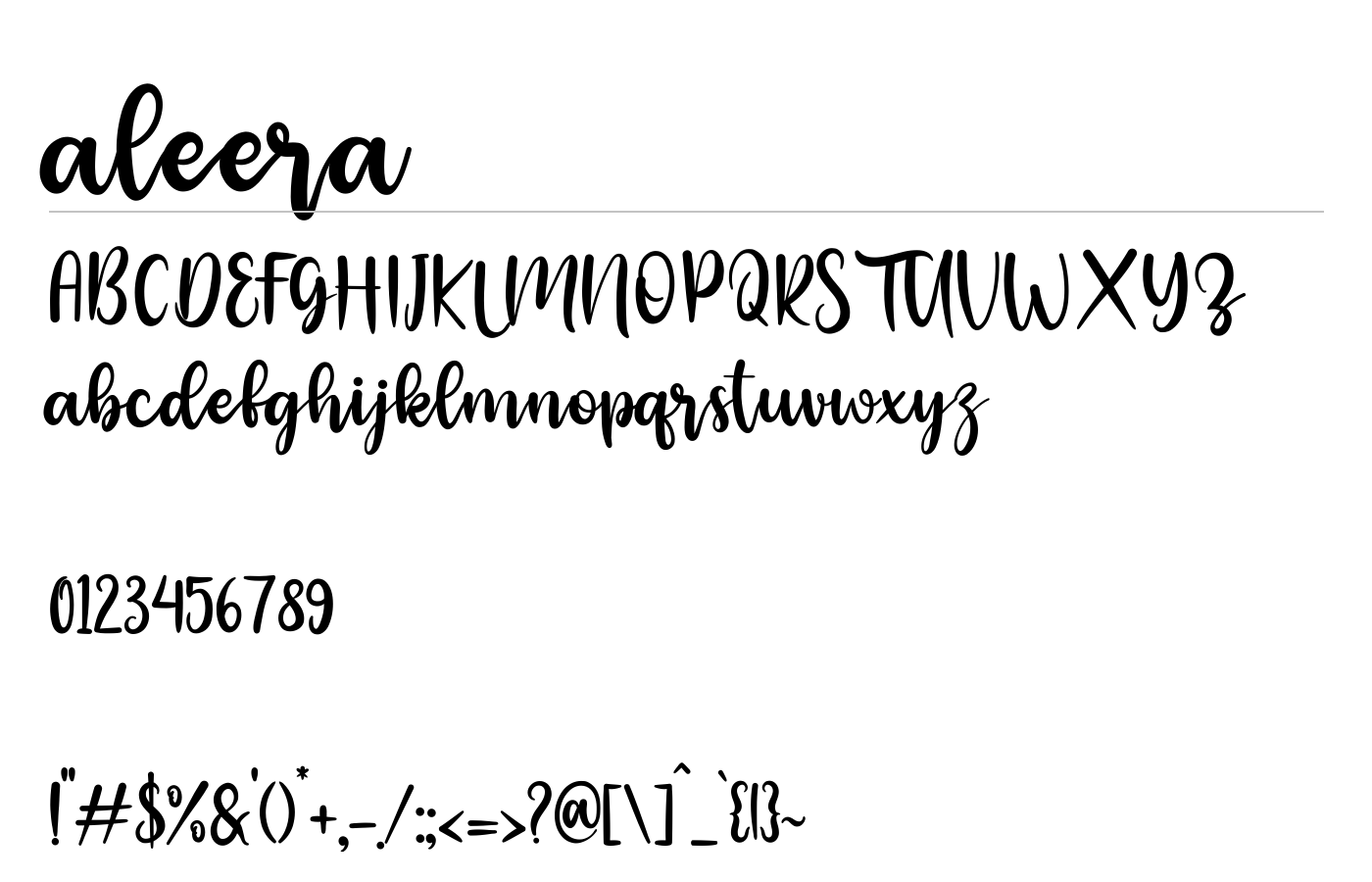
Aleera is a playful and expressive script font with a lively, handwritten feel. Its smooth, moderately bold strokes and rounded letterforms create a friendly and approachable look, making it perfect for creative projects, casual branding, and eye-catching headlines. This font works well for invitations, logos, and packaging where a warm and personal touch is desired.
aleera Font